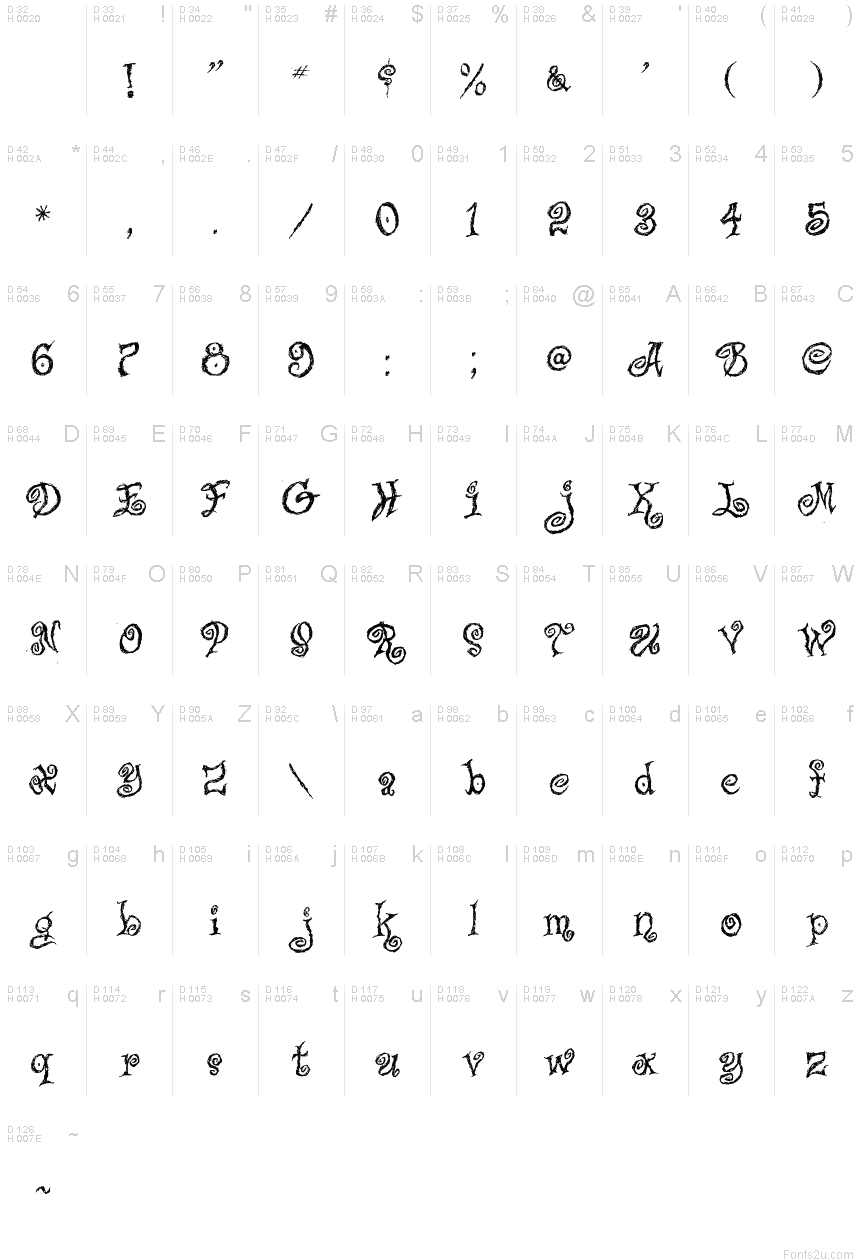
Caffe Latte font by its creator is a free curly display typeface that looks like it was doodled in foamy latte art. Each letter swirls into itself with tight spirals and wobbly strokes, giving the text a fizzy, caffeinated energy that feels both playful and a little mischievous. The rough, inky edges add a handmade charm, as if drawn with a slightly shaky marker on a chalkboard menu.
Using Caffe Latte, you can instantly give character to café branding, bakery packaging, kids’ party invitations, fantasy zines, craft fair posters, and quirky social media graphics. This free font works best at larger sizes where its curls and spirals can breathe. Pair it with a clean, neutral sans-serif for supporting text to keep layouts readable while letting Caffe Latte handle the fun, eye-catching headlines.